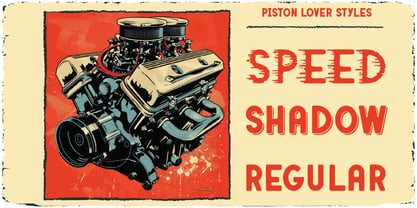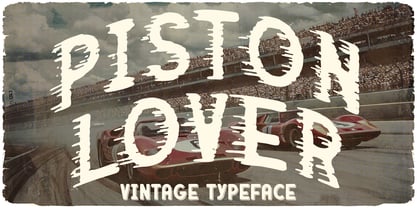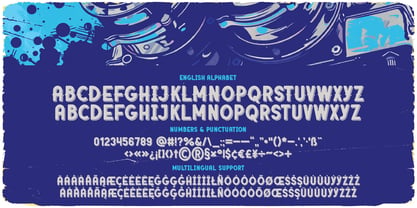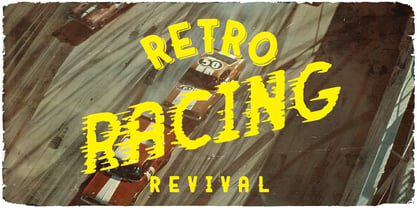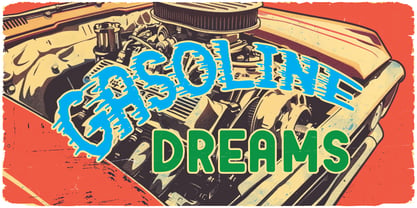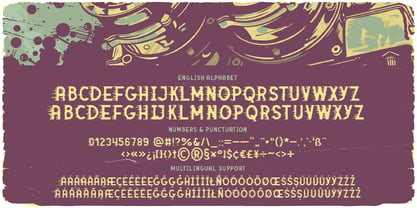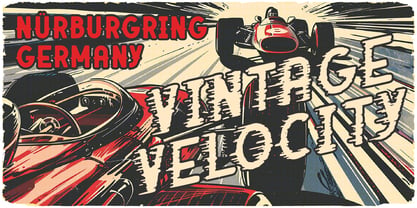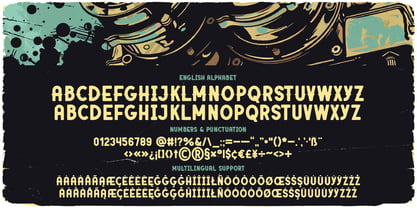
Piston Lover
by Vozzy
The Piston Lover Font Family was designed by Oleg Voznyy and published by Vozzy. Piston Lover contains 3 styles and family package options. More about this family
Introducing the original display font "Piston Lover" – a striking, handcrafted typeface designed to make a statement. It comes with extended characters, punctuation, and full multilingual support, making it a versatile choice for any creative project. A variety of alternate characters are included to give your text a personalized and dynamic look. Whether you're creating posters, flyers, branding, or T-shirt graphics, this font adds character and clarity to your design. "Piston Lover" was carefully drawn by hand to capture an authentic and expressive feel. Make your work stand out with this unique custom font.
Designers: Oleg Voznyy
Foundry: Vozzy
Piston Lover